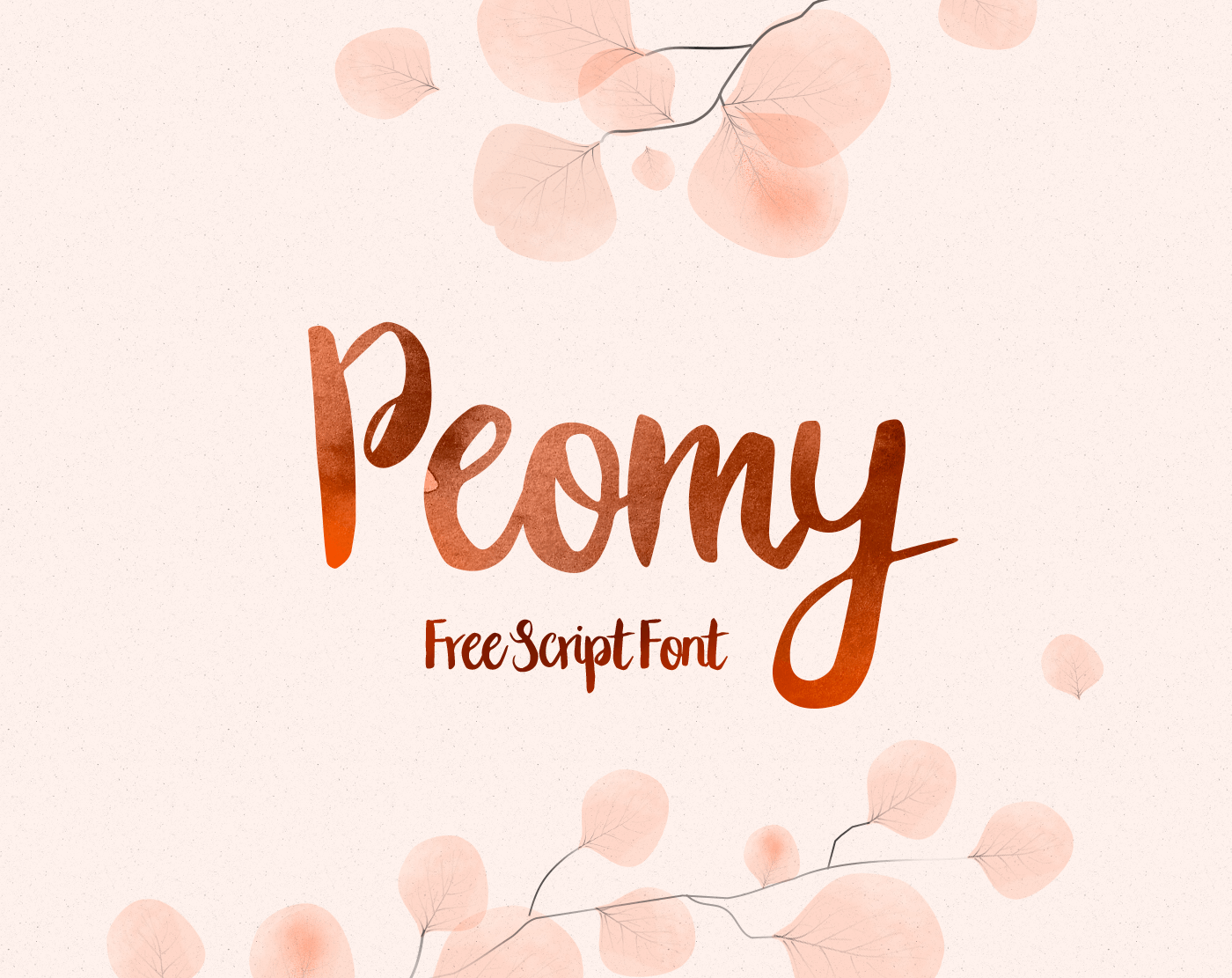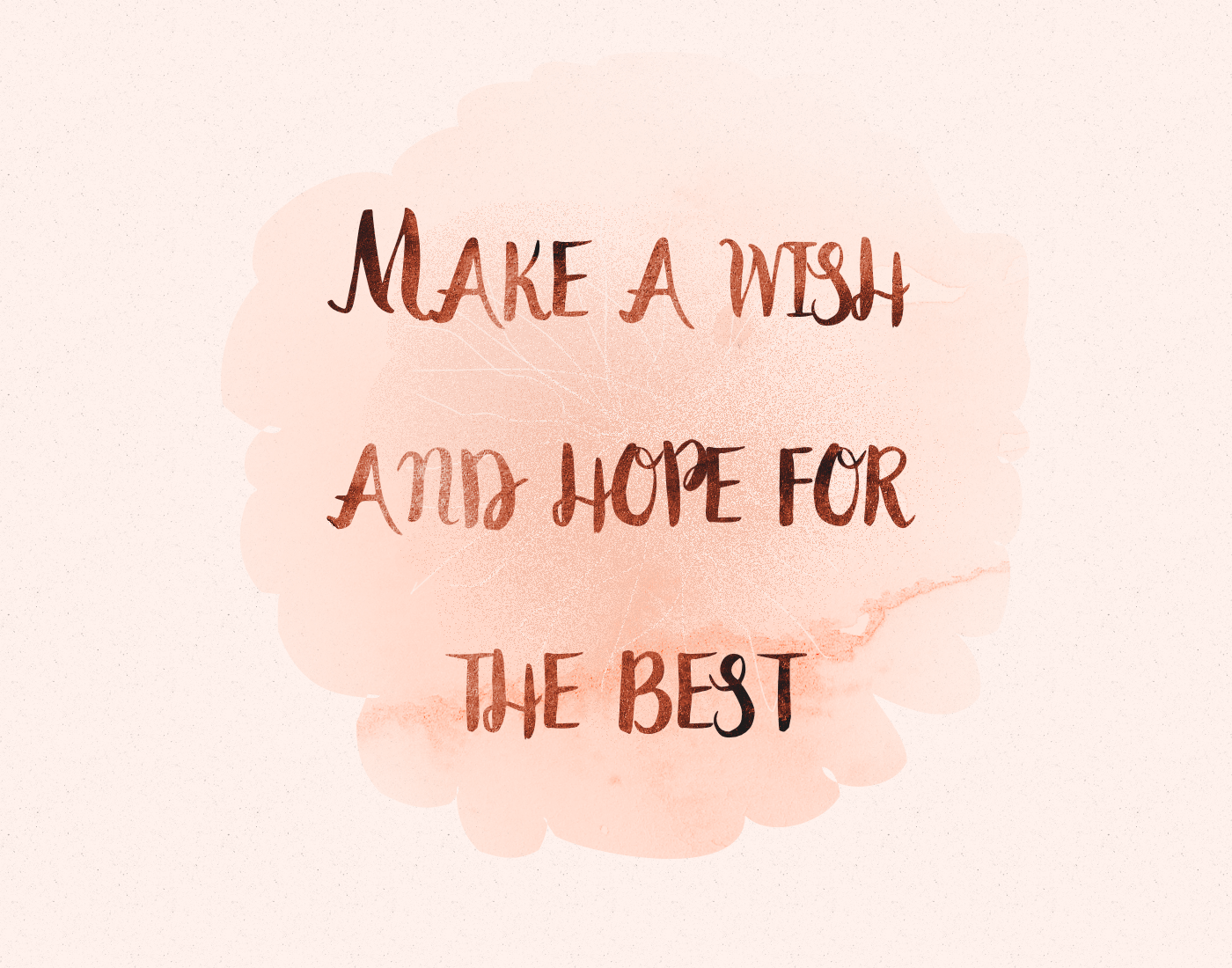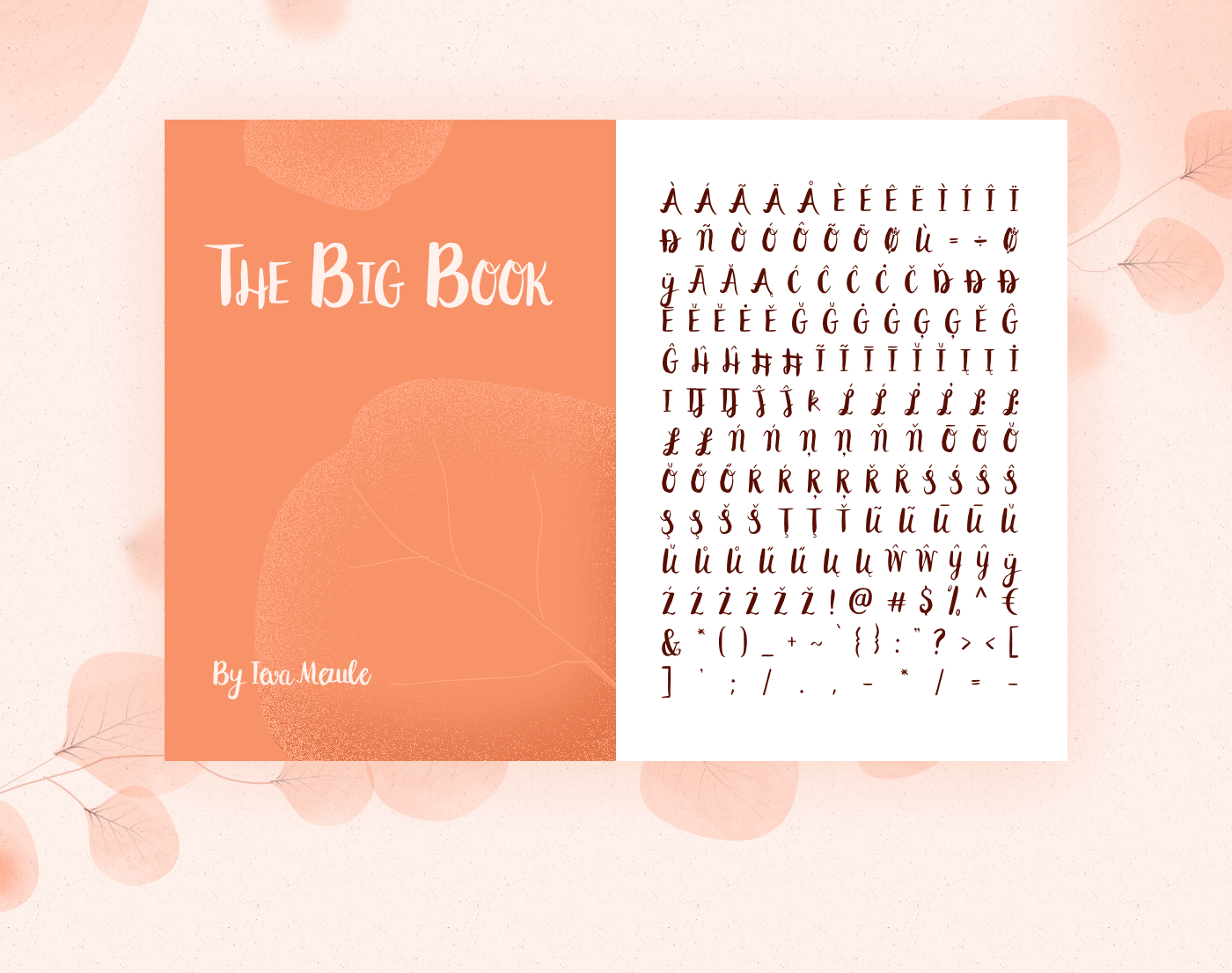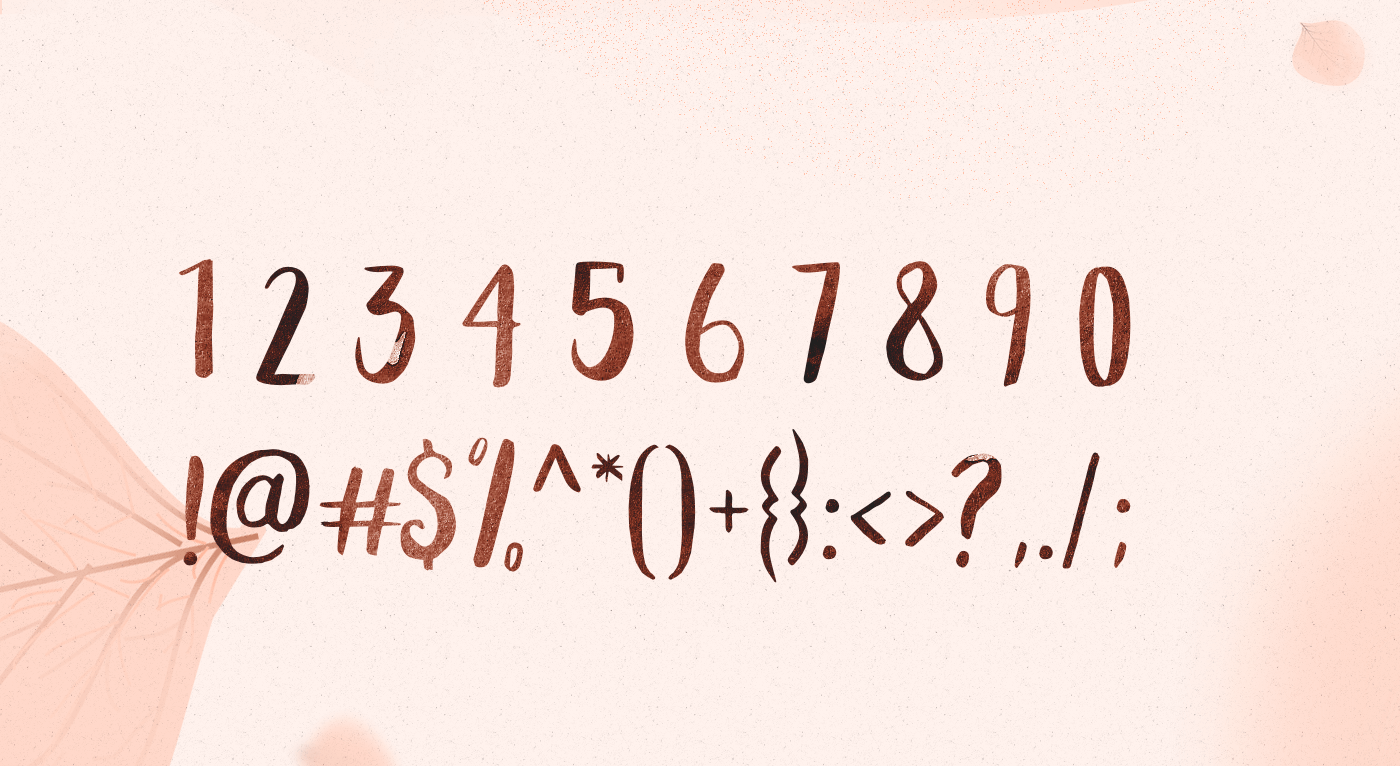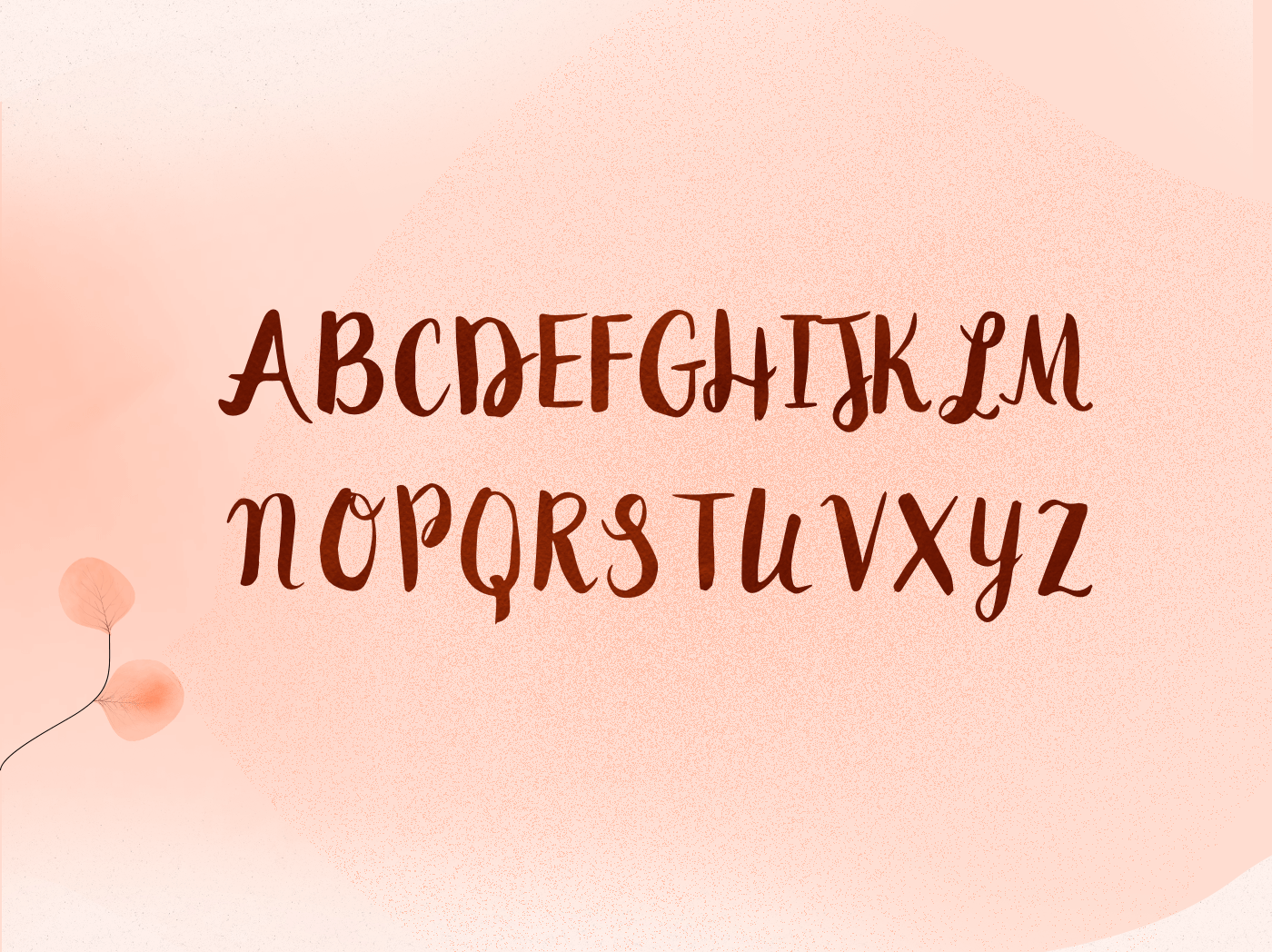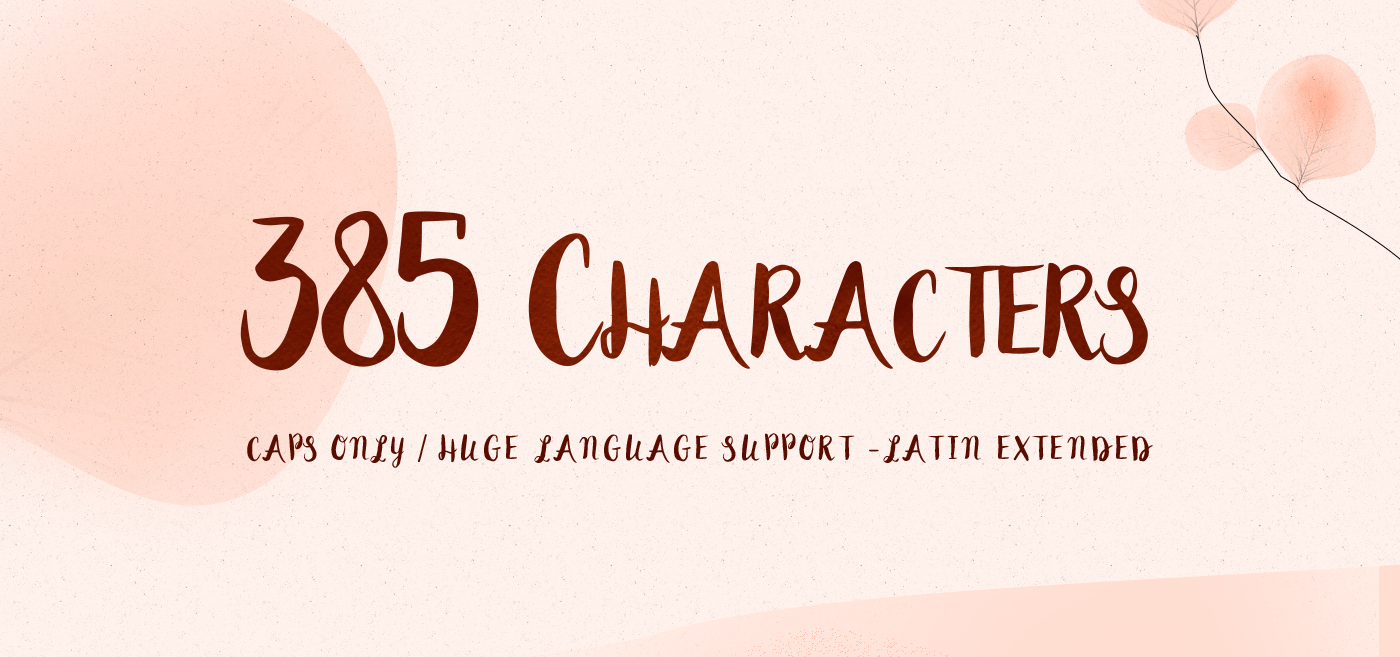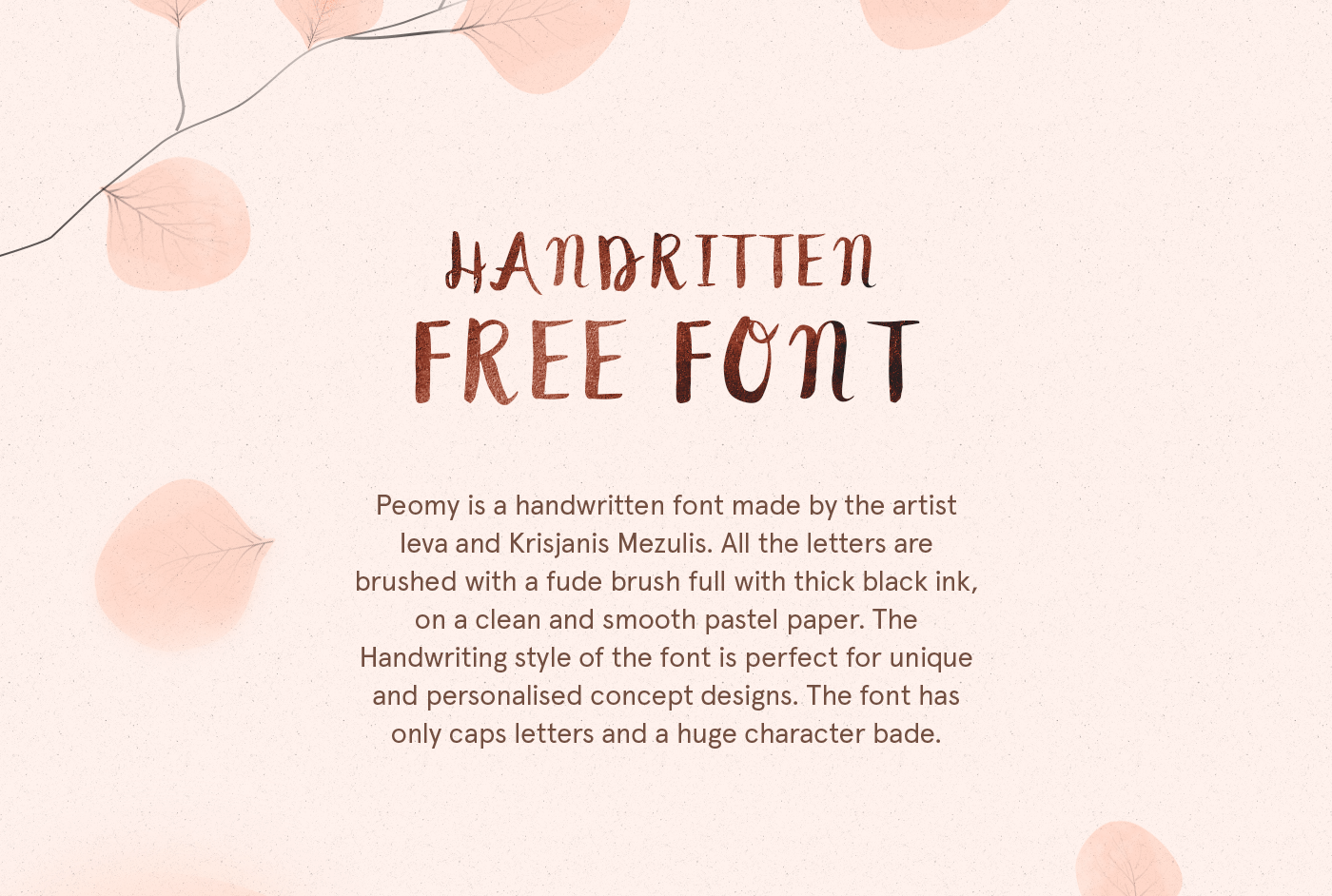
Peomy Free Script Font is a handwritten free font made by Wild Ones Design. The handwriting style of the font is perfect for unique and personalised concept designs. Peomy has only caps letters and a huge character bade – 385 characters, all Caps letters. Free for personal and commercial use!